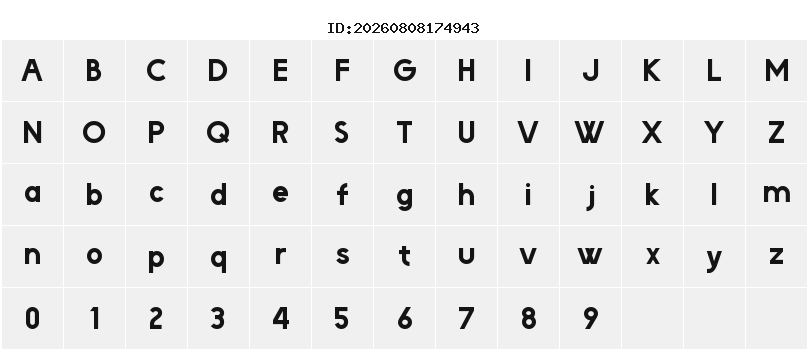
Playoffs Preview
• Font Name: Playoffs
About Playoffs.ttf
Playoffs.ttf is a modern, elegant sans-serif font designed for ultimate readability and visual harmony. Perfect for branding, headlines, web design, and print materials.